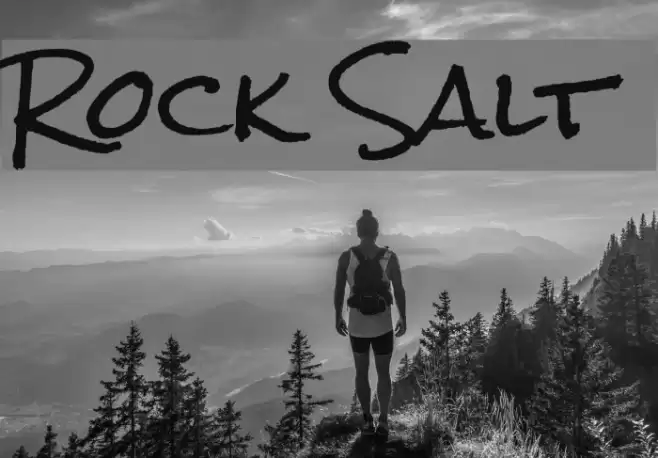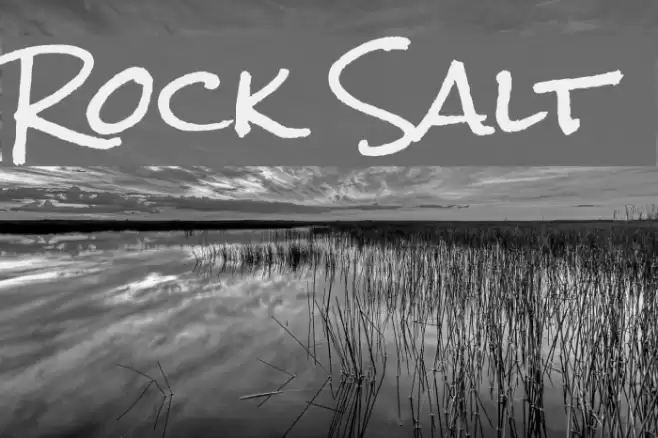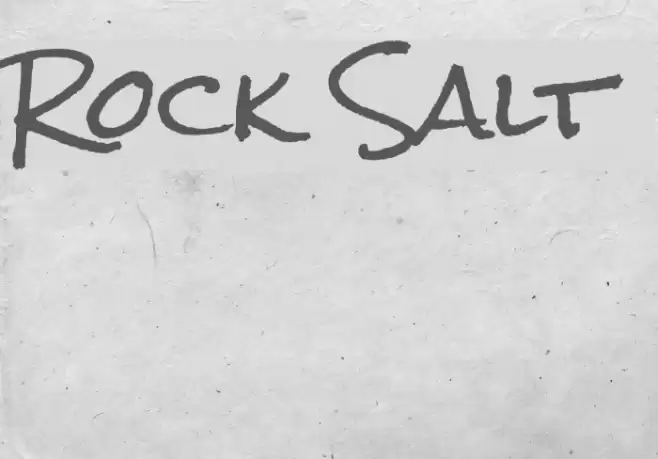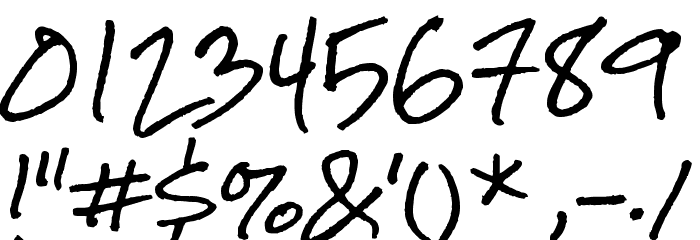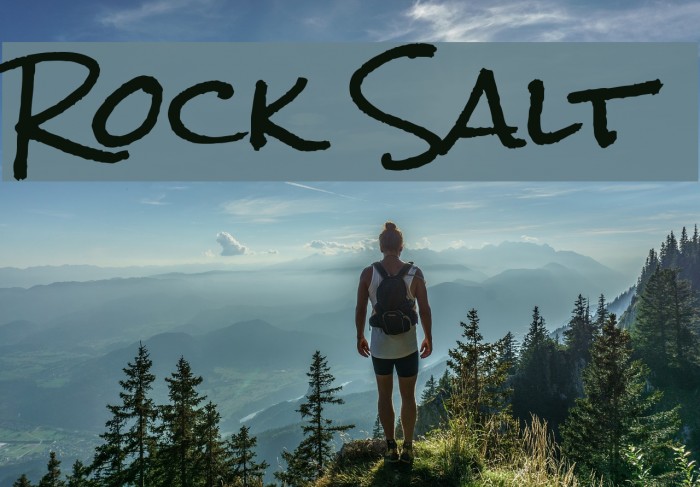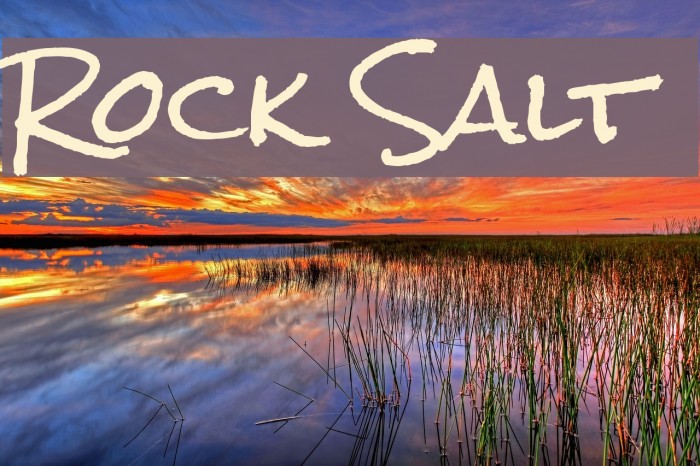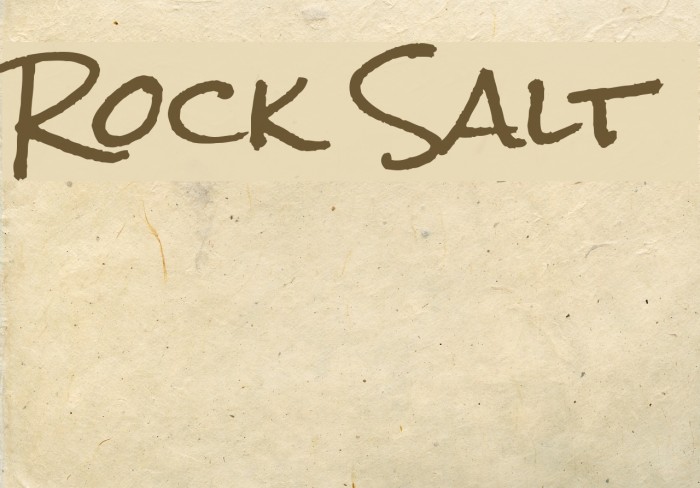
Rock Salt Font
Rock Salt Description
This font exudes a casual, handwritten style with a natural flow and organic feel. The characters are slightly slanted, giving a dynamic and lively appearance. The strokes are uneven, mimicking the look of real handwriting, which adds a personal touch. The uppercase and lowercase letters are distinct, with a playful yet legible design. Numbers and special characters maintain the same handwritten aesthetic, ensuring consistency across all glyphs. This font is perfect for projects that require a personal, informal touch, such as greeting cards, invitations, or creative branding.
A casual, handwritten font with a lively and organic feel from Uncategorized fonts.
- Proposed Projects: Ideal for greeting cards, invitations, personal branding, and creative projects.
- Overall Style: Casual, Organic
- Use Case: Headlines, Creative projects, Personal branding